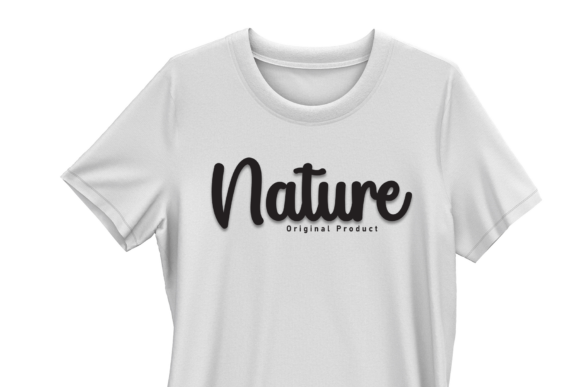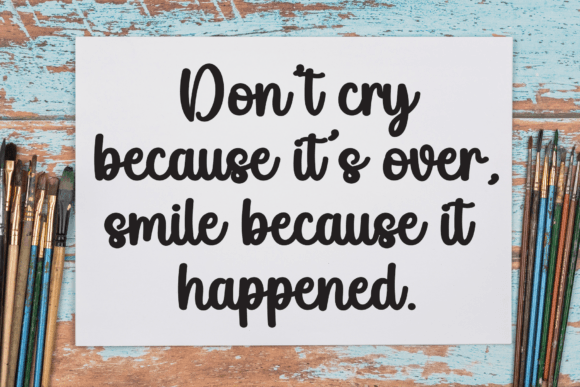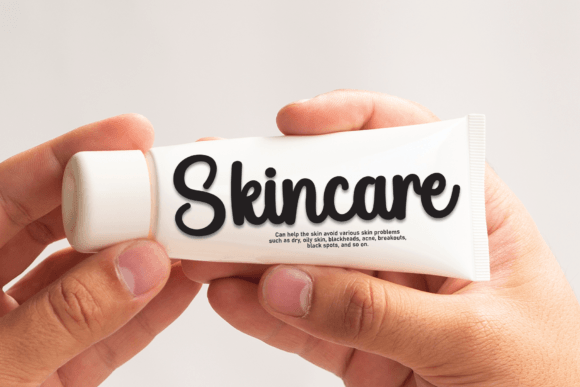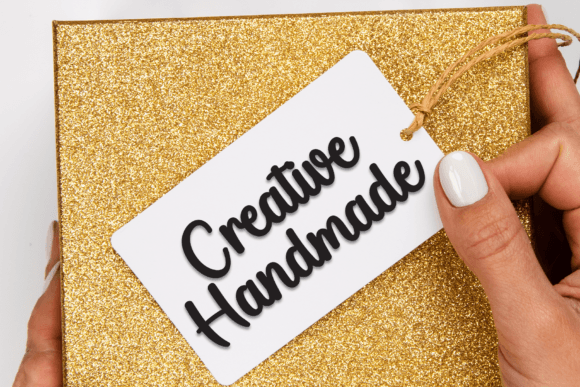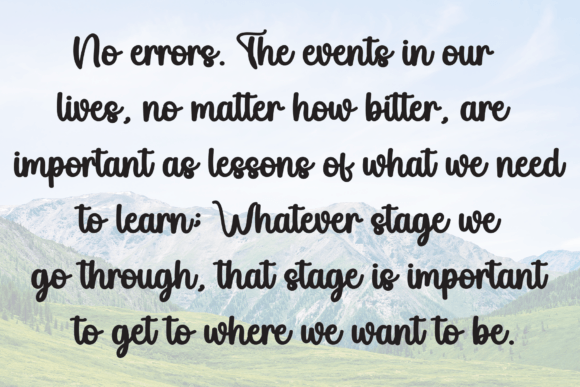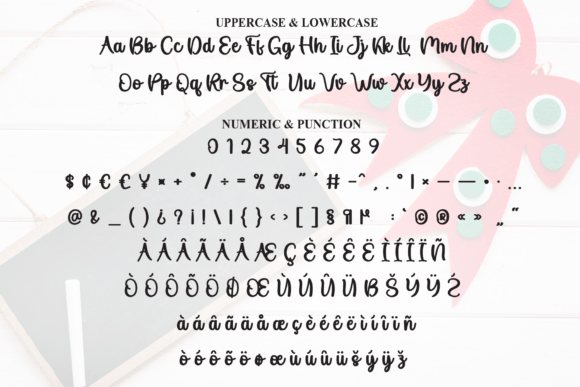
Introduction to Magnet School Font
Have you ever stared at a blank canvas, searching for the perfect font to bring your creative project to life? For many designers, that moment of inspiration can be a game-changer. It’s the spark that ignites a new idea, and in this case, it’s the Magnet School Font that’s about to steal the show.
As a valuable design resource, the Magnet School Font is more than just a pretty face. Its unique, bold handwritten style is perfect for adding a personal touch to invitations, posters, and any other project where you want to inject a fun and casual feel. With its free download option and high-quality design, it’s no wonder this font is a favorite among designers looking to elevate their creative projects.
Whether you’re working on a design project with a transparent background or need a font that will stand out, the Magnet School Font is sure to deliver. Its playful and friendly vibe makes it a must-have for any designer looking to add a little extra magic to their work.
Key Features of Magnet School Font
- High-quality design resource ideal for creative projects and educational materials
- Transparent background for easy customization and versatility
- Large character set with over 200 glyphs, including letters, numbers, and symbols
- Designed in high resolution (300 DPI) for optimal print quality
- Perfect for use in educational materials, such as textbooks, worksheets, and presentations
- Unique, modern design that is both fun and engaging for students of all ages
Honest Review: Magnet School Font
I recently had the chance to work with the Magnet School Font, and I must say, it’s a decent addition to any design resource collection. The free download made it easy to get started, and the transparent background allowed for seamless integration into various creative projects.
- ✨ High-quality glyphs: The font’s characters are well-designed and crisp, making it suitable for both digital and print use.
- ✨ Versatile: The Magnet School Font can be used for a wide range of creative projects, from educational materials to marketing campaigns.
- ✨ Easy to read: The font’s clear typography ensures that the text remains legible, even at smaller font sizes.
However, I did encounter a few limitations. ⚠️ The font lacks a bold weight, which might limit its use in certain situations. Additionally, the font’s x-height could be improved for better readability at smaller font sizes.
Overall, the Magnet School Font is a solid choice for designers looking for a high-quality, free download. While it may not be perfect, it’s a great resource to have in your toolkit, especially for educational or creative projects that require a clean and modern look.
Tips for Getting the Most Out of Magnet School Font
To get the most out of the Magnet School Font, consider the following tips: use it with a transparent background to create a modern look, experiment with different font sizes and colors to add depth and interest, and pair it with other high-quality design resources for a cohesive and professional design.
The Magnet School Font is suitable for a wide range of creative projects, including school projects, business materials, and personal designs. Its unique aesthetic and high-quality design make it an ideal choice for anyone looking to add a touch of modernity to their work.